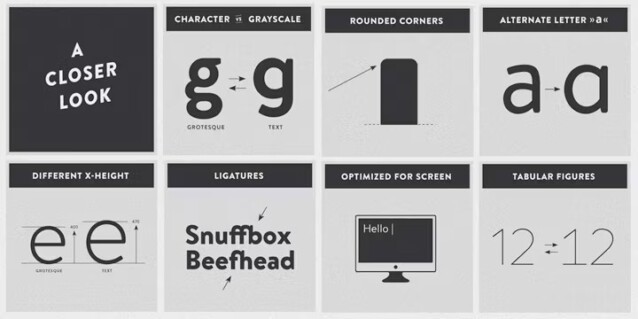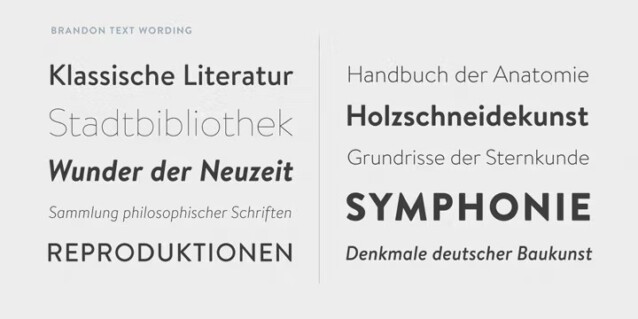
Brandon Text Font Family
Brandon Text Font is a contemporary sans-serif specially crafted for high-impact applications in magazines, newspapers, banners, and more. It has a higher x-height than the Grotesque version and is optimized for long texts, small sizes and screens. This sans serif type family of six weights plus matching italics was designed by Hannes von Döhren in 2012. Influenced by the geometric-style sans serif faces that were popular during the 1920s and 30s, the fonts are based on geometric forms that have been optically corrected for better legibility. Brandon Text has a functional look with a warm touch and works perfectly together with.